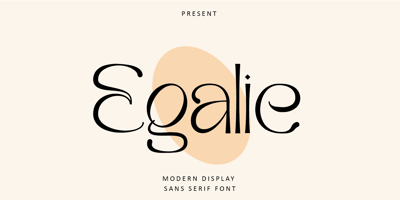
The Egalie Font is an exceptional choice for designs that prioritize clean lines, modern aesthetics, and a versatile yet distinctive presence. Imagine it enhancing the user interface of a cutting-edge app, bringing a sophisticated touch to editorial layouts in magazines, or providing clear, readable text for corporate reports. It's also perfectly suited for branding that seeks a contemporary and approachable feel, as well as for website body text where legibility and style are equally important. With its balanced proportions and subtle character, the Egalie Font is ideal for projects that demand a refined and functional typeface.
What makes the Egalie Font truly exciting is its remarkable ability to blend understated elegance with high functionality. It’s designed for supreme readability across various mediums and sizes, making it a reliable workhorse for both display and text applications. The font possesses a timeless quality that avoids fleeting trends, ensuring your designs remain fresh and relevant for years to come. Its clean and uncluttered appearance contributes to a professional and trustworthy impression, making it a go-to for designers who value clarity and sophisticated simplicity. The Egalie Font Free Download offers a fantastic opportunity to experience this typeface's versatile capabilities.
The Egalie Font family is typically designed to offer a comprehensive range of weights and styles, maximizing its adaptability for diverse design requirements. While specific family members can vary, you can often expect to find:
• Egalie Thin
• Egalie Light
• Egalie Regular
• Egalie Medium
• Egalie SemiBold
• Egalie Bold
• Egalie Black
• Egalie Italic (or Oblique versions for various weights)
These extensive variations provide designers with ample flexibility to create intricate visual hierarchies, from delicate accents to impactful headlines, ensuring optimal performance across a wide array of applications while maintaining the font's signature clear and contemporary appearance.